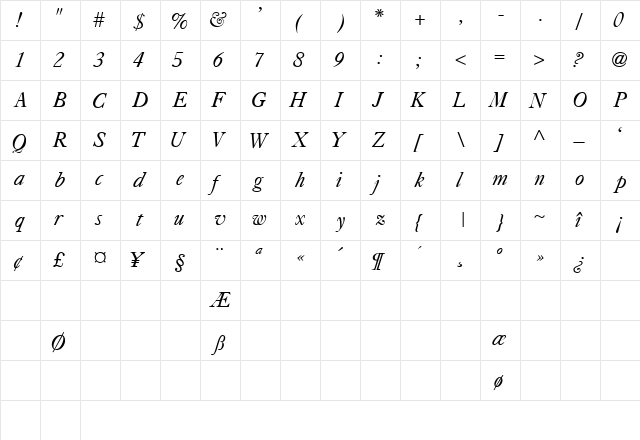
CaslonLightSSK Italic Font Preview
Design Context for CaslonLightSSK Typeface
CaslonLightSSK offers clean, dependable letterforms without strong stylistic allegiance, making it a practical choice for designers who need flexibility. Its italic angle brings a sense of urgency and motion to the letterforms. Its slender proportions lend an understated elegance to any composition.
Pro Tip: Try CaslonLightSSK for annotation and caption copy alongside an upright companion — the contrast in angle creates a dynamic but ordered typographic system.